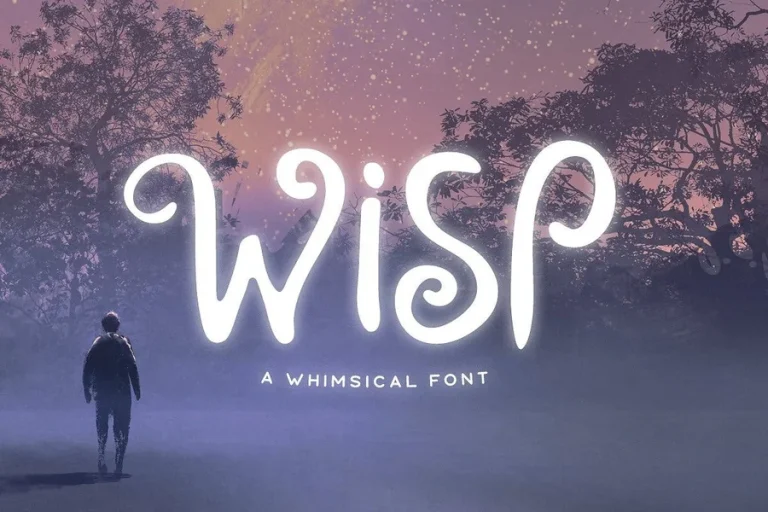
Whimsical Font Styles That Add Playful Charm to Design
Whimsical Font Light-hearted font results in happiness of words. It is light playful and personality-filled. This is the favorite style by designers as it brings warmth and emotion. The use of a playful font can even transform simple text into a pleasant message. It makes brands human and imaginative. This article discusses the beauty of whimsical use of fonts. You will know where it suits the best and why people like it. You also will have numerous name ideas and know how to select a proper style to your project.
What Makes a Whimsical Font Special
A playful font is light hearted and jovial. It tends to appear as hand drawn or a bit inaccurate. This renders it cozy and welcoming. Most playful fonts are made with the help of light contours and fun shapes. Some of them are childlike and others are artistic and daring.
A fanciful typeface is not concerned with perfection. It is about personality. Letters may tilt or bounce. Spacing may feel relaxed. This makes the text lively. Whimsical fonts are used by designers to give pleasure and fantasy.
The style is effective with greeting cards and children books creative logos and social media graphics. It is full of feeling without uttering a single word. When you encounter a funny font you tend to smile over the message.
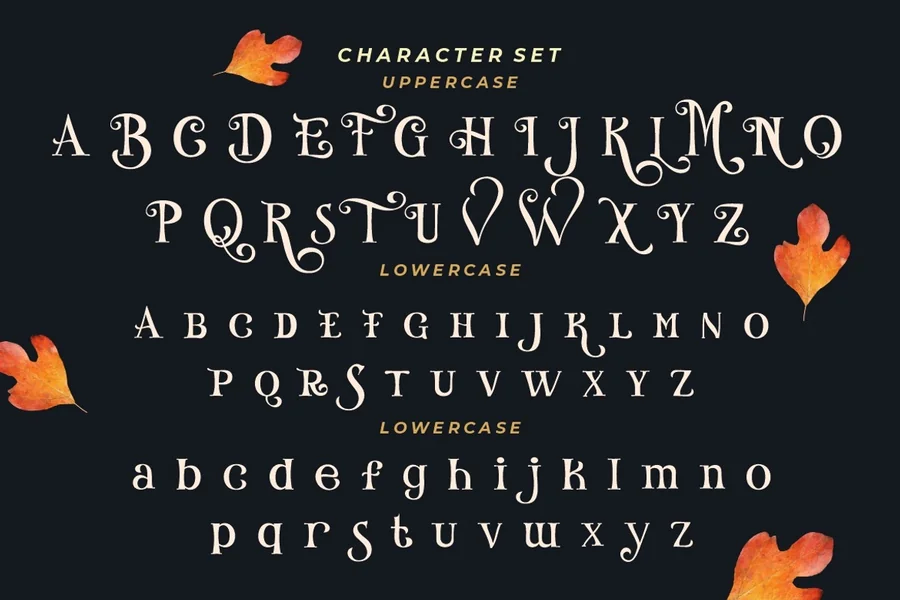
Where Whimsical Font Works Best
A playful font is best suited in innovative areas. It is most suitable in children projects. It is also effective with art brand cafes and lifestyle blogs. Whimsical fonts are a way of making many small businesses feel welcoming and friendly.
A familiarity and creativity can be demonstrated in the branding of a whimsical font. It makes a brand touch personal. It narrates without uttering a lot of words.
Whimsical font is conspicuous on social media in the digital content. It catches the eye and is entertaining. It can also be applied in invitations and event posters.
Whimsical font does not serve well with official documents. It is most effective when the aim is not authority, but to be connected.
Popular Whimsical Font Styles and Names
There are many whimsical font styles available. Each one has its own personality. Below are more than fifty names that designers often explore.
Sunny
Bubbles
Doodle
Sprinkle
Candy
Giggles
Poppy
Luna
Breezy
Twinkle
Happyday
Magic
Sprout
Cloudy
Jellybean
Wiggle
Sunnyday
Flipflop
Pixie
Noodle
Dreamy
Playtime
Smiley
Peppy
Joyful
Bubbly
Sketchy
Pencilpop
Starry
Moonbeam
Bounce
Chirp
Flutter
Daisy
Cherry
Mellow
Peachy
Snappy
Zippy
Glow
Frolic
Tickle
Honey
Spark
Loop
Ripple
Whimsy
Cloudpop
Feather
These names reflect the playful nature of a whimsical font. Each one suggests creativity and fun. Designers often choose based on mood and audience.
How to Choose the Right Whimsical Font
The selection of the whimsical font is a matter of what you want to say. Think first about your audience. A brand of children might require a lighter lighthearted style. Something that is unique but welcoming may be required in a creative business.
Then consider readability. Even a whimsical font is supposed to be readable. Excessive curves or strange figures may disorient the readers. Balance fun with clarity.
Color also matters. Whimsical fonts tend to match soft colors. Bright colors can be added but they need not dominate the text.
Test your font in real use. Test it in head-lines and short lines. See how it feels. Another thing is that a good whimsical font must be natural and happy.
Final Thought
Whimsical font gives words a life. It introduces emotion character and beauty. It is able to make a memorable text out of a simple text when utilized appropriately. Branding to personal projects this kind of style can be used to reach people in a warm manner. Select a lighthearted font that is appropriate to your voice and purpose. Make your speech smile like design.
What is a whimsical font
A whimsical font is a playful typeface that feels fun creative and expressive.
Where can I use a whimsical font
You can use it in logos posters invitations social media and children content.
Is a whimsical font good for professional work
It works best for creative brands and casual projects not formal documents.
Can I mix a whimsical font with other fonts
Yes pairing it with a simple font can create balance and clarity.
Why do designers love whimsical fonts
They add personality emotion and visual interest to any design.